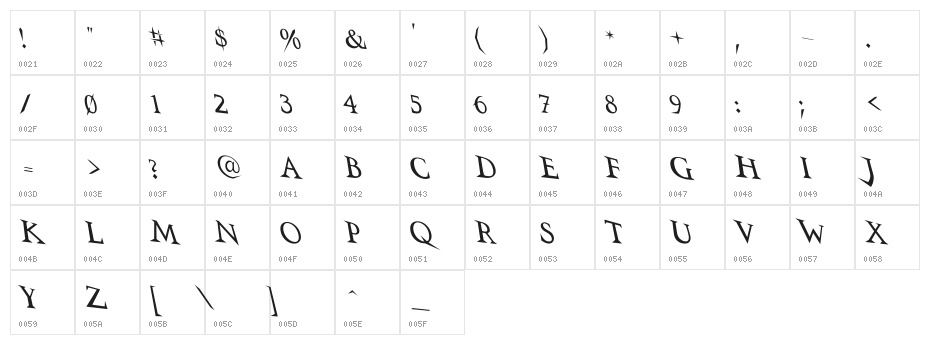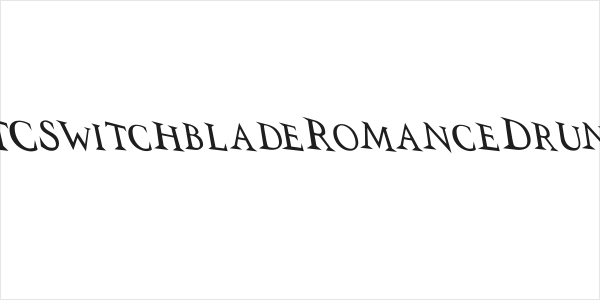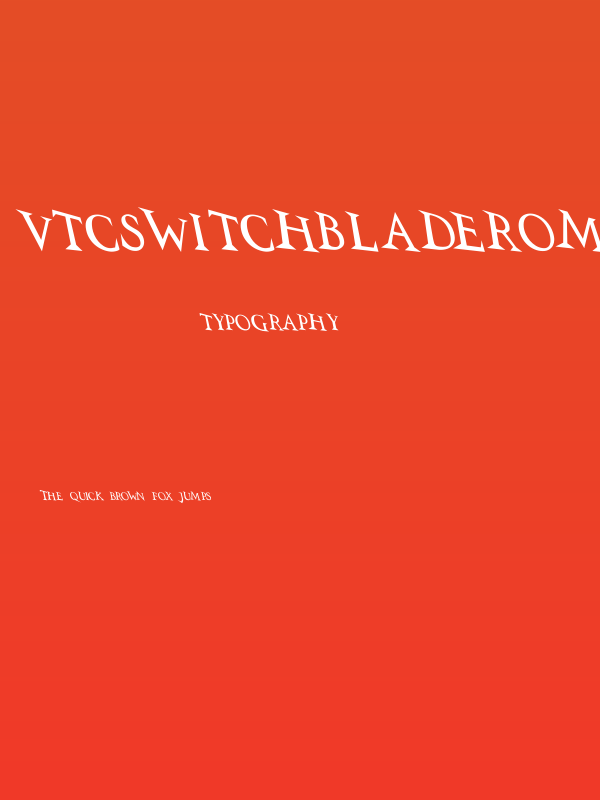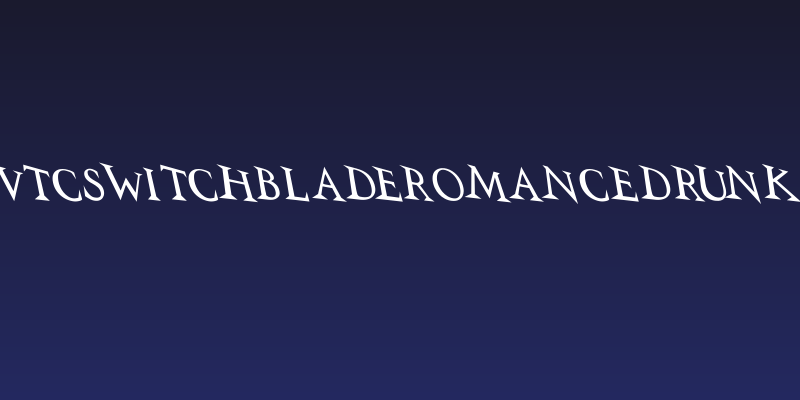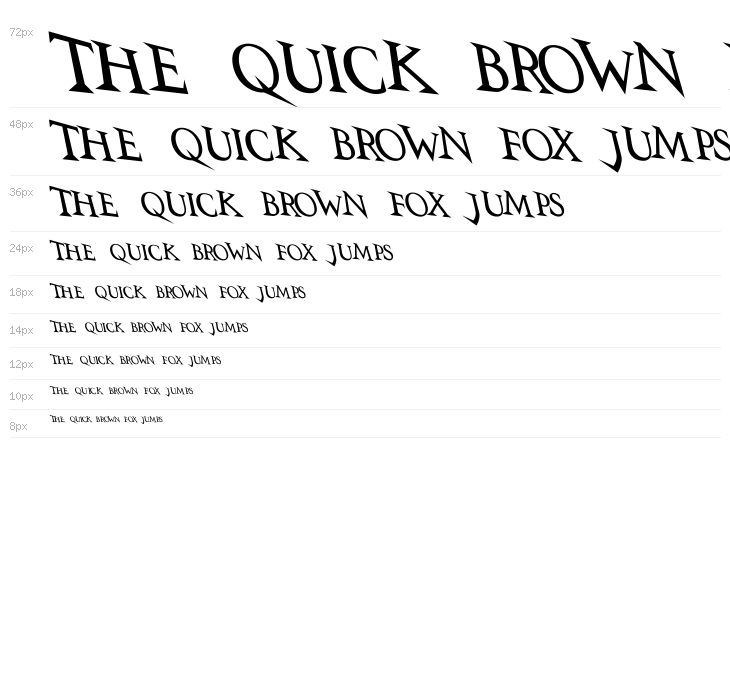
VTCSwitchbladeRomanceDrunk Font
VTCSwitchbladeRomanceDrunk Description
This font features a bold and edgy design with sharp, angular lines that give it a distinct and aggressive appearance. The letters are slightly slanted, adding a dynamic and energetic feel. The uppercase and lowercase characters maintain a consistent style, with exaggerated serifs and pointed edges that create a sense of movement and intensity. The numbers and special characters follow the same design principles, ensuring a cohesive look across all elements. This font's unique style makes it stand out, ideal for projects that require a strong visual impact.